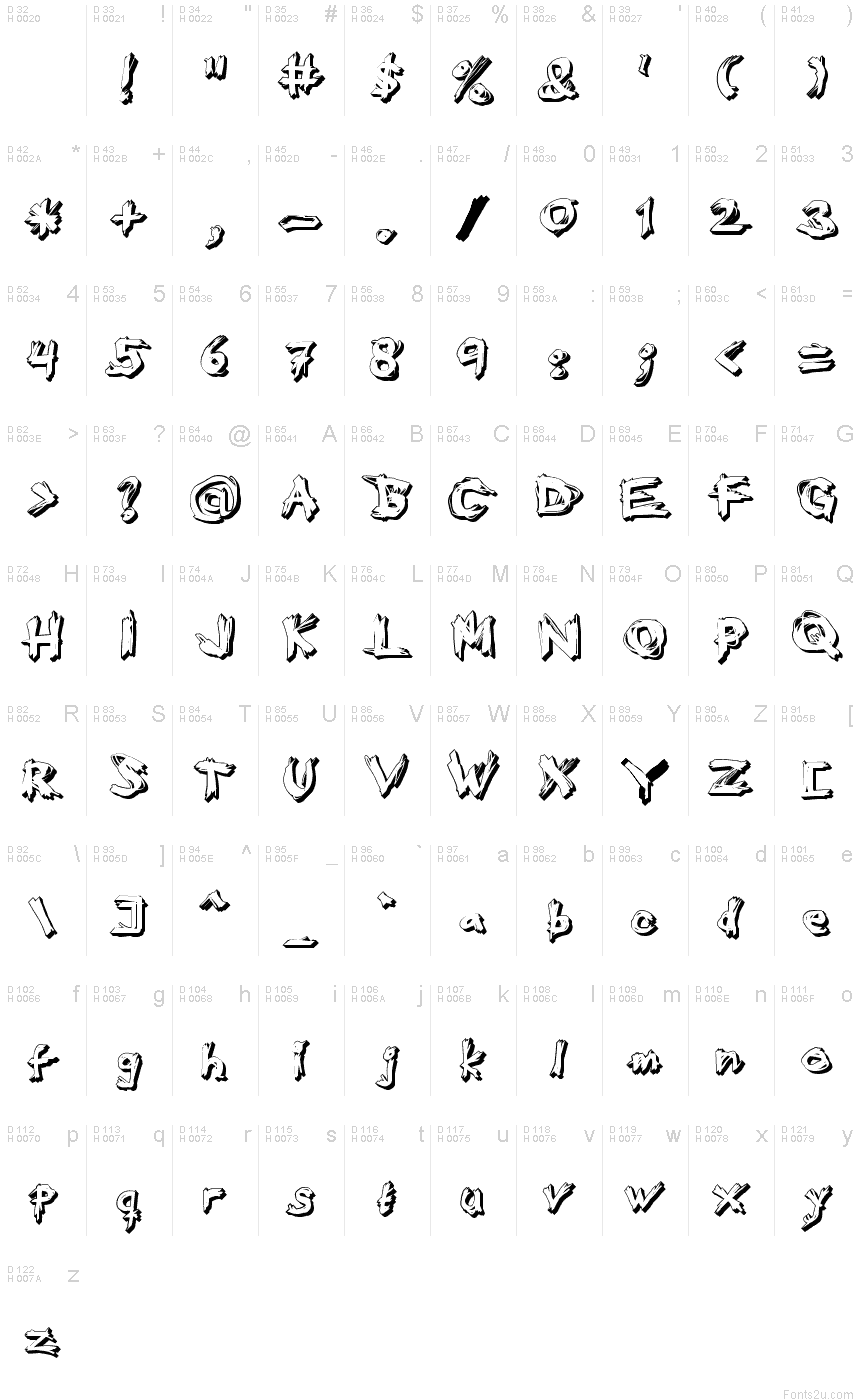
Eat Your Face Now by Andreas Johansson is a free graffiti display font built from rough, oversized brush strokes with changing widths and sharply cut letter shapes. Its uneven outlines, abrupt angles, and scattered slash-like gaps make the lettering look hand-painted, torn, and deliberately unruly.
Rooted in street-art and punk graphics, it suits music posters, skateboard merchandise, and game artwork with an aggressive comic edge, especially when the subject leans loud and rebellious. For snack packaging or youth-focused branding, the jagged forms can become part of a bold mascot, sticker, or illustrated logo rather than sitting apart as neutral type.